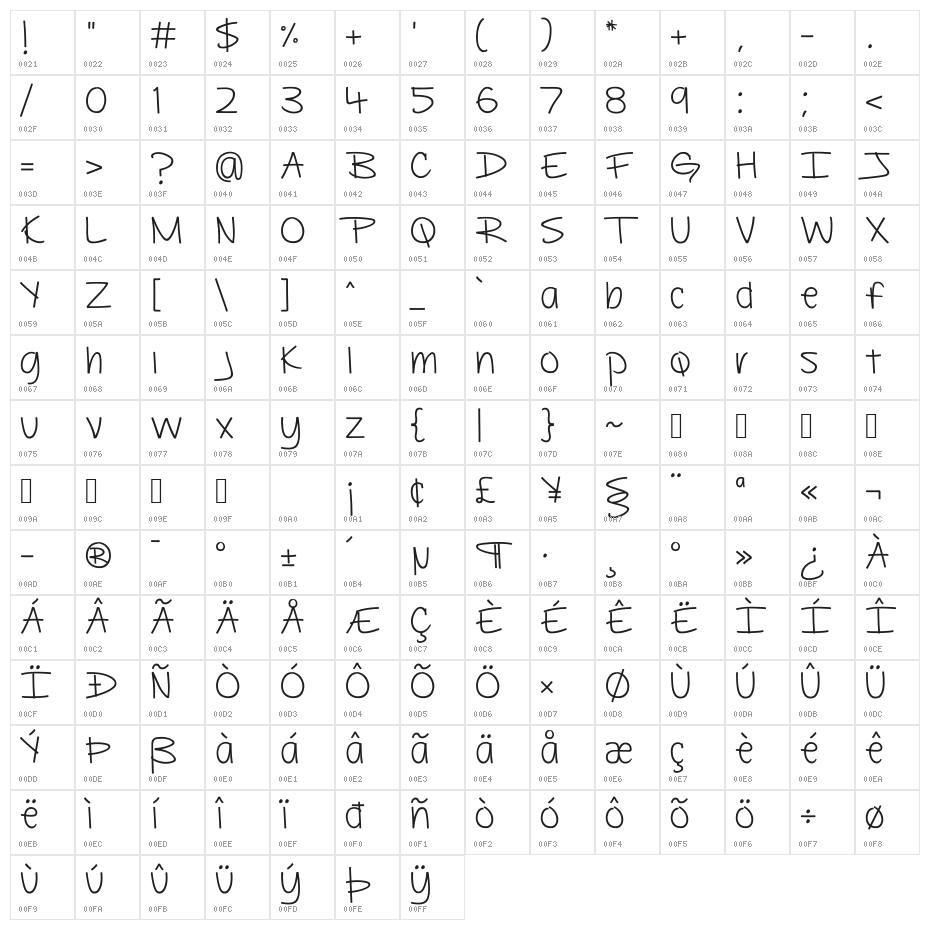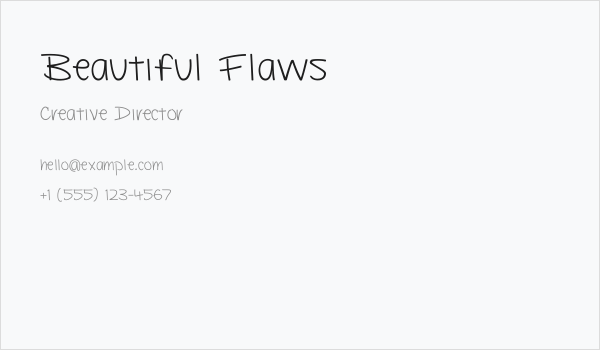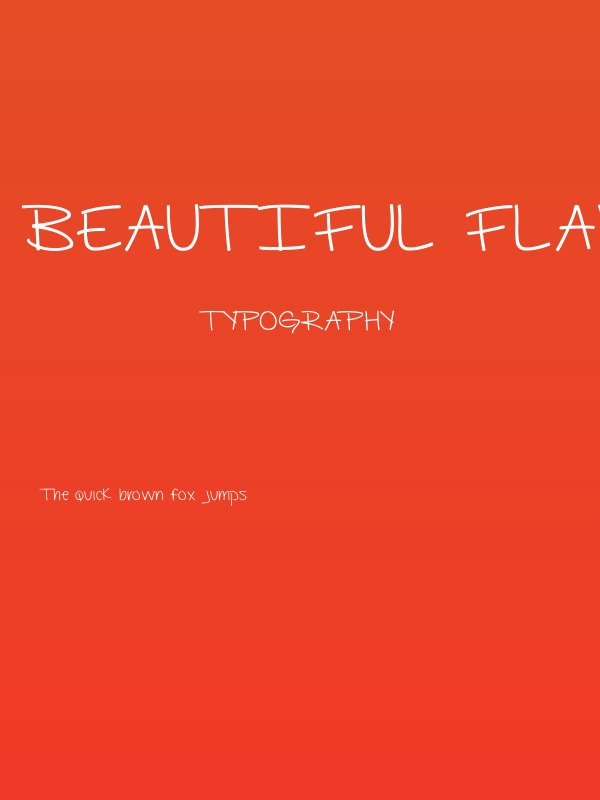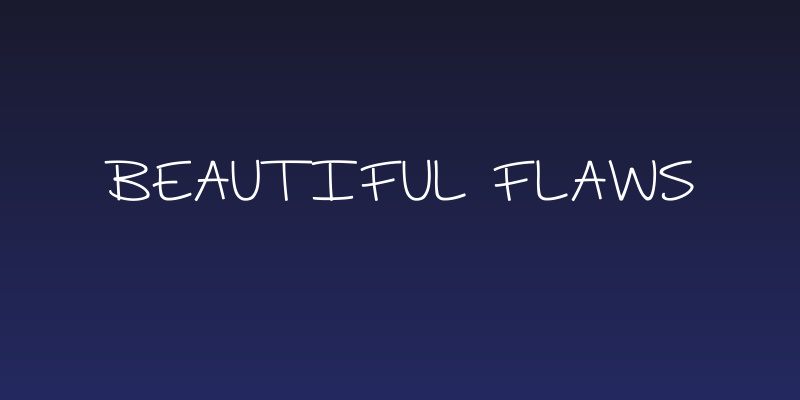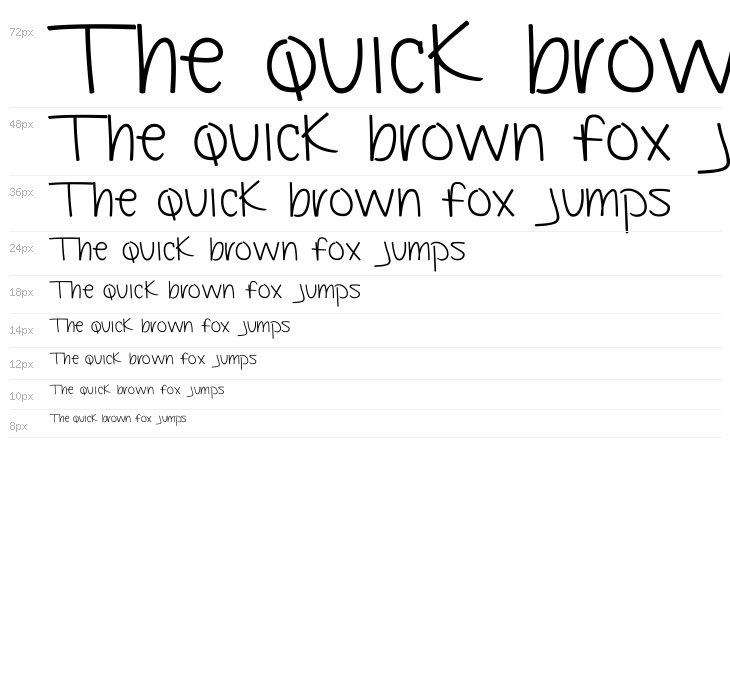
Beautiful Flaws Font
Beautiful Flaws Description
This font features a playful and quirky handwritten style, characterized by its irregular and slightly imperfect letterforms that give it a unique charm. The uppercase letters are tall and narrow, with a whimsical touch that adds personality to each character. The lowercase letters maintain this playful aesthetic, with some characters having exaggerated loops and curves. The numerals are consistent with the overall style, offering a cohesive look. Special characters are creatively designed, maintaining the font's distinctive flair. This font's informal and friendly appearance makes it ideal for projects that require a personal touch.
| Proposed Projects | Ideal for greeting cards, children's books, playful branding, and social media graphics. |